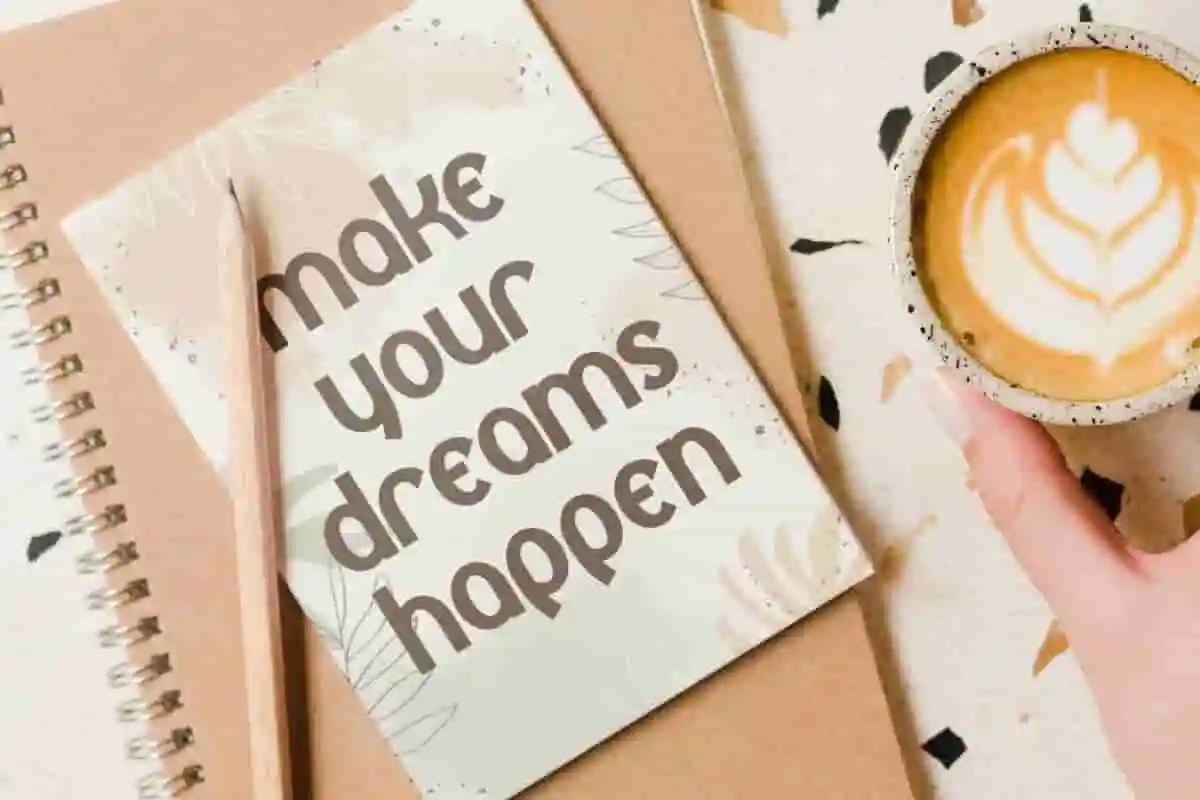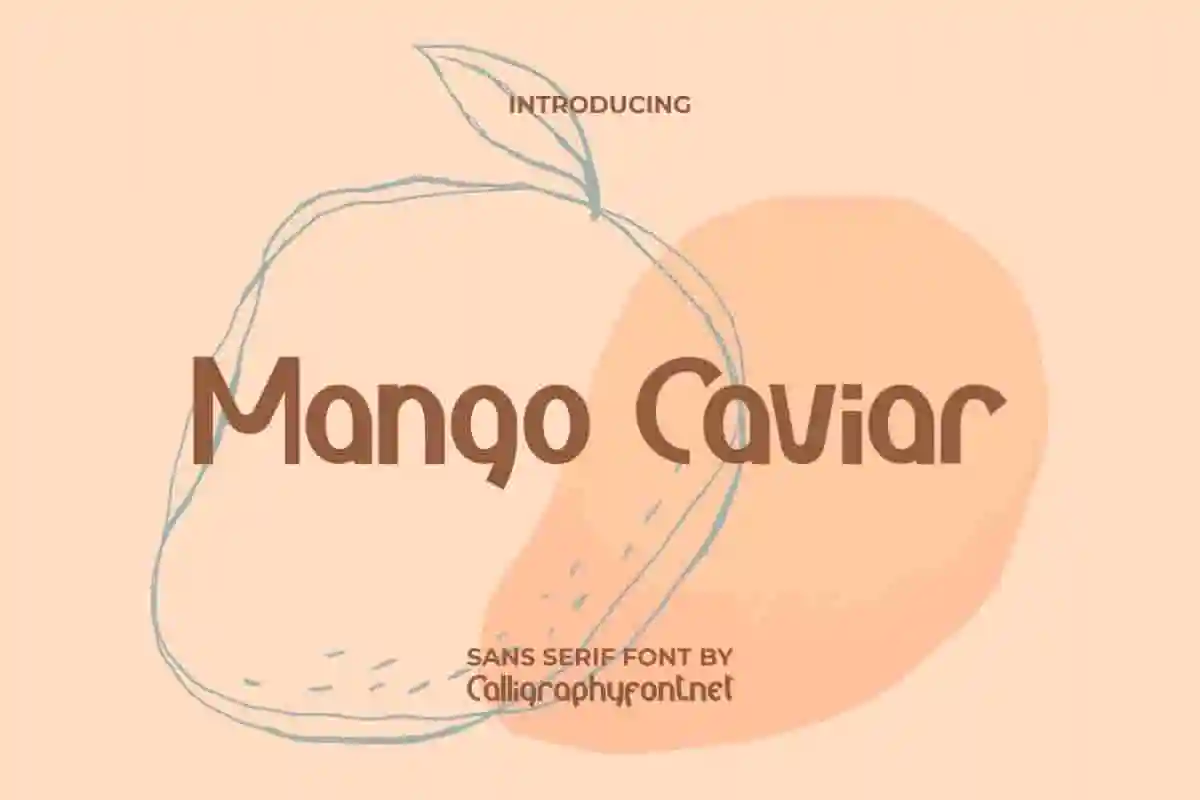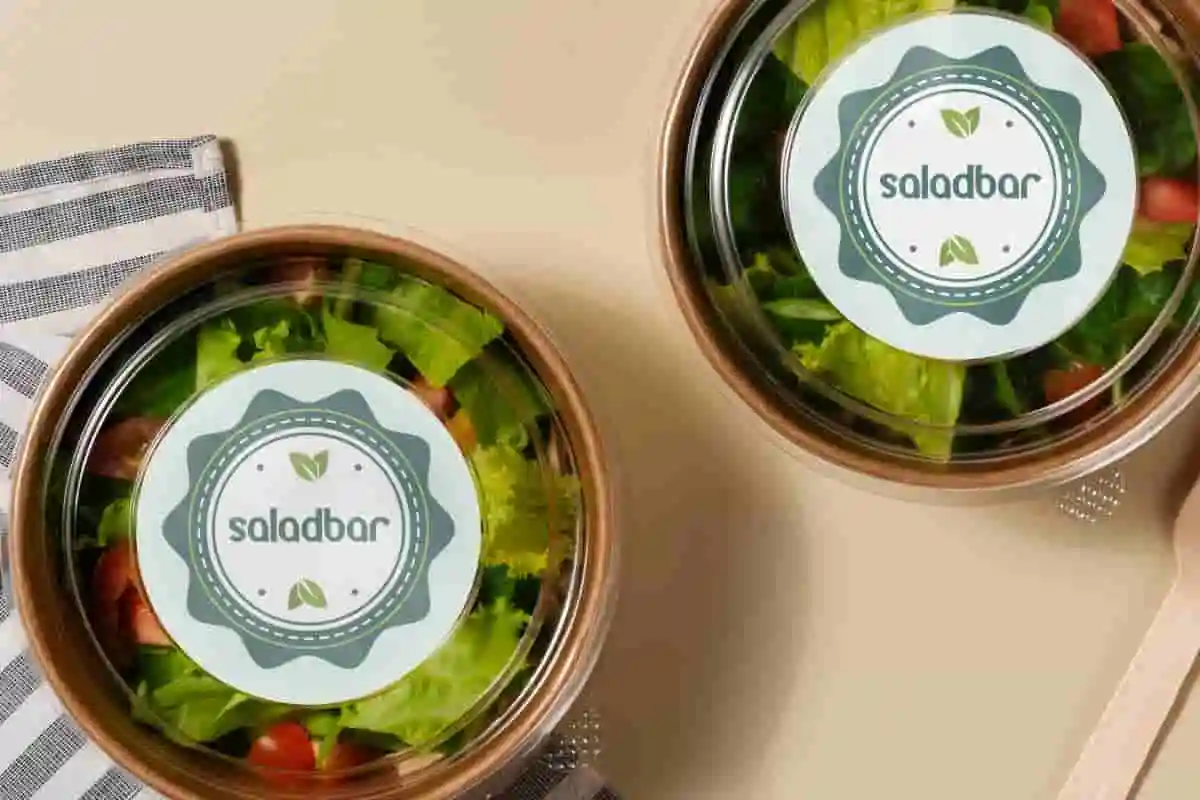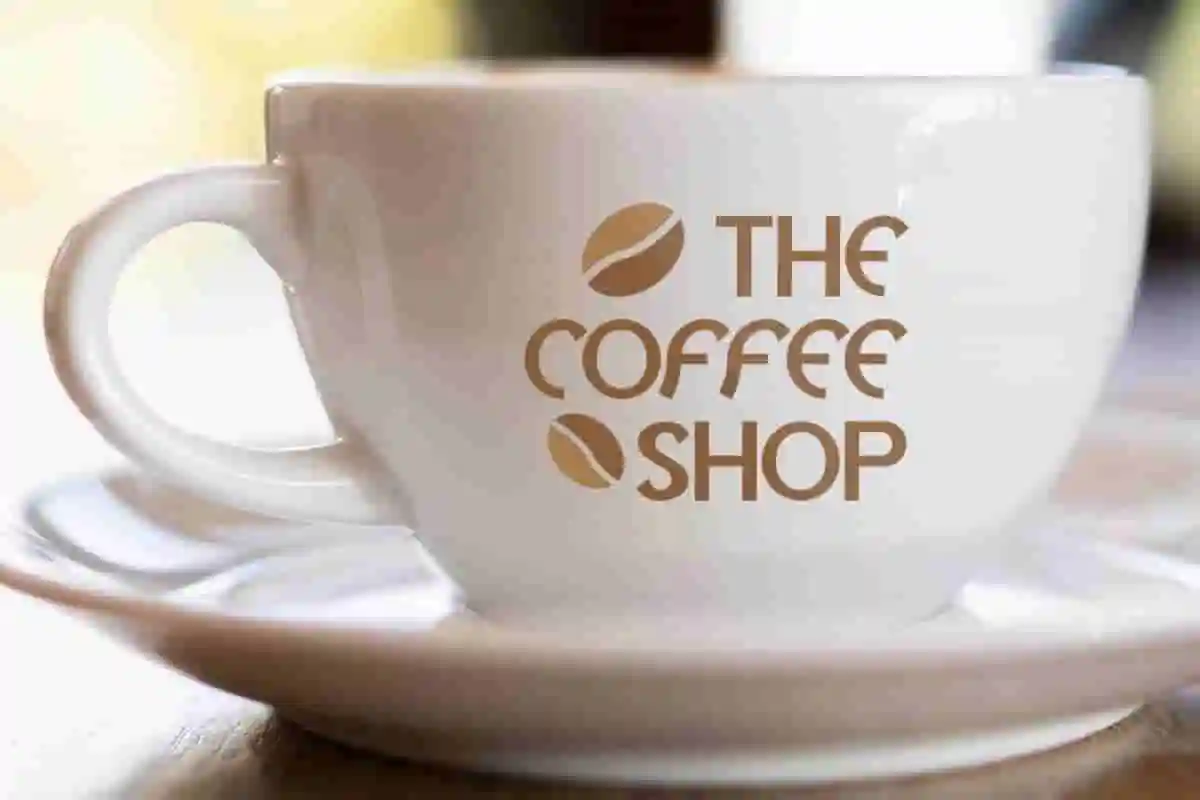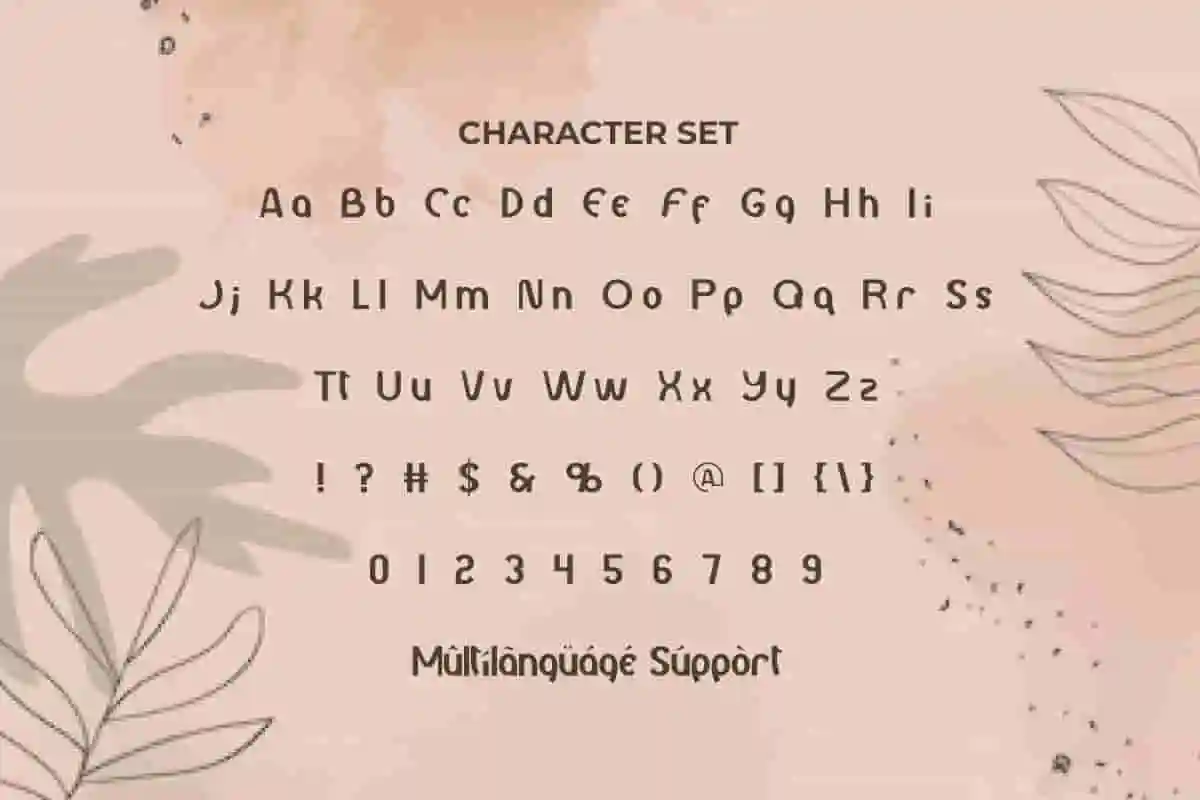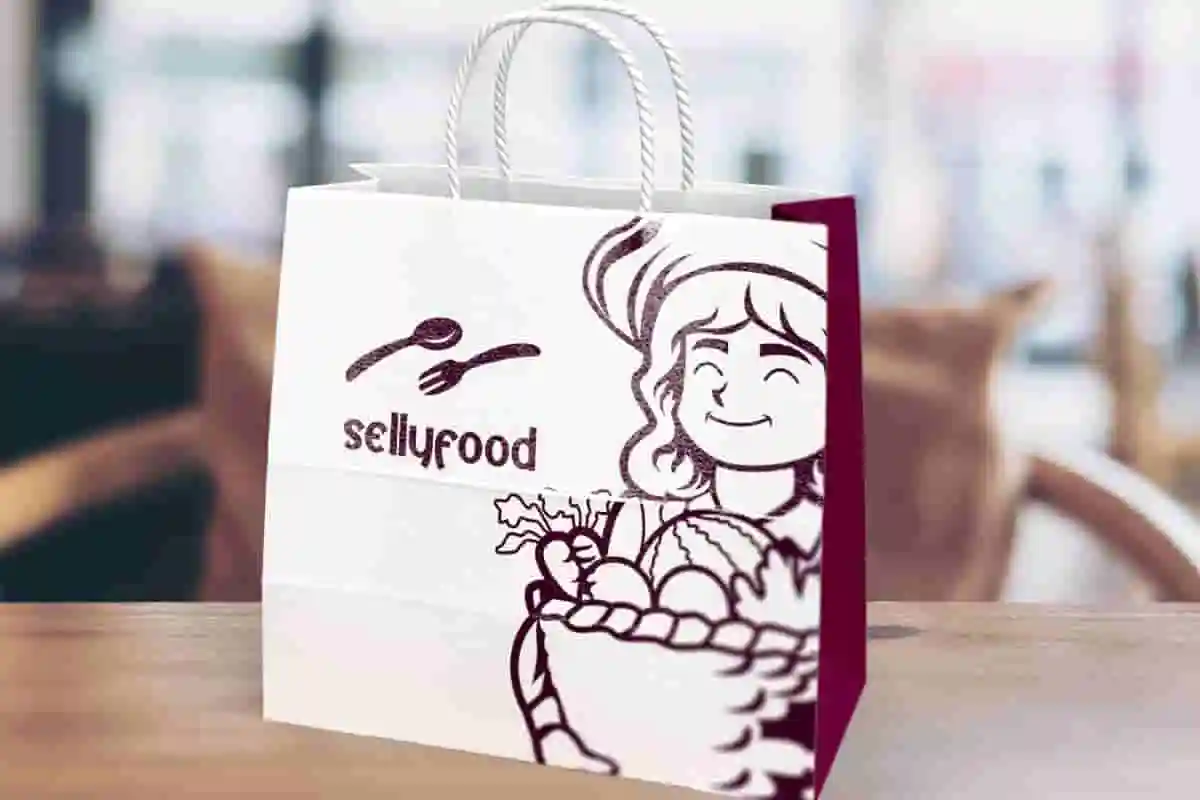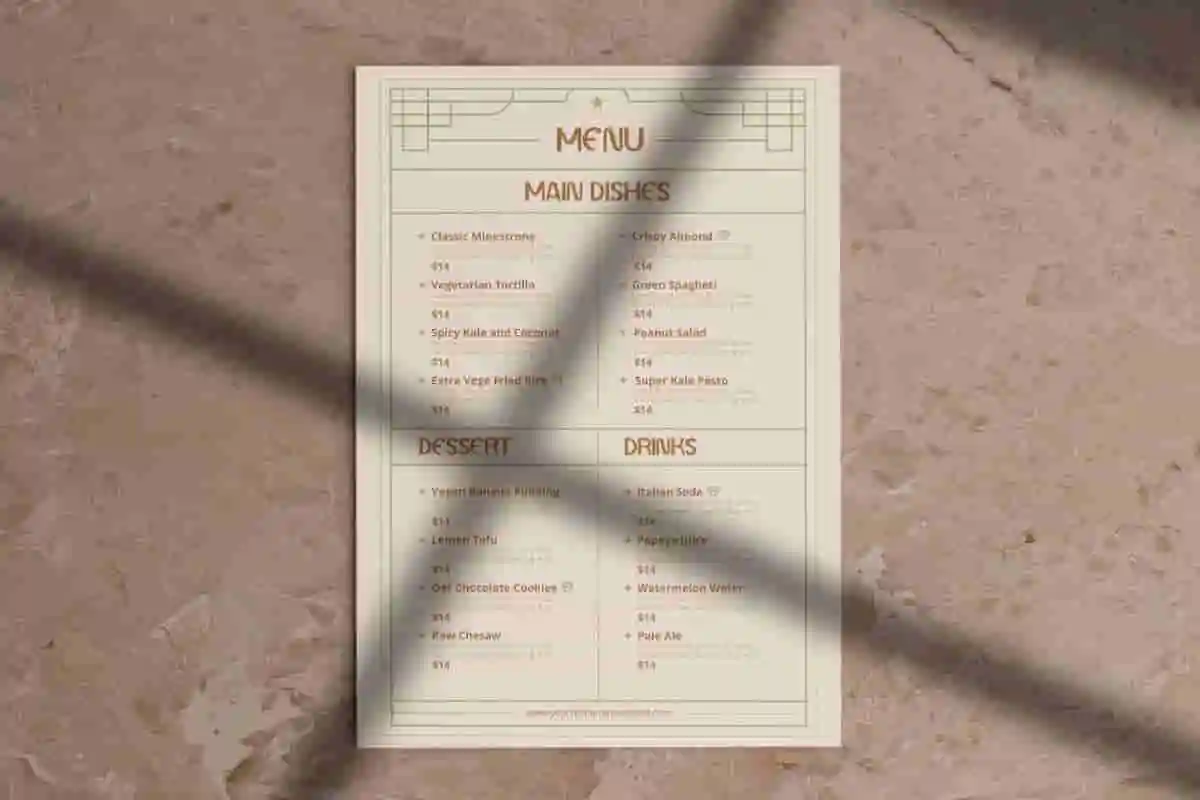
Mango Caviar Font
Mango Caviar Font is a adorable sans serif display font that will be great for all your designs that will amaze you at very first sight!
Mango Caviar Font is a cute sans serif display font with modern touch. This font has thick line and cute shape, making it stand out more in any designs, such as website page, menu, cover, flyer, invitation, label, stationery, billboard, brand image, custom design, packaging design , poster, screen print, signage, social media post, sticker, card, title, and many more!
Mango Caviar Font can be the right choice for many companies that will use it in many industry, such as cafe, event organizer, restaurant, book and comic, movie, accessories, advertising, fashion, digital marketing, graphic design, handicraft, homeware, photography, printing, publishing, etc.